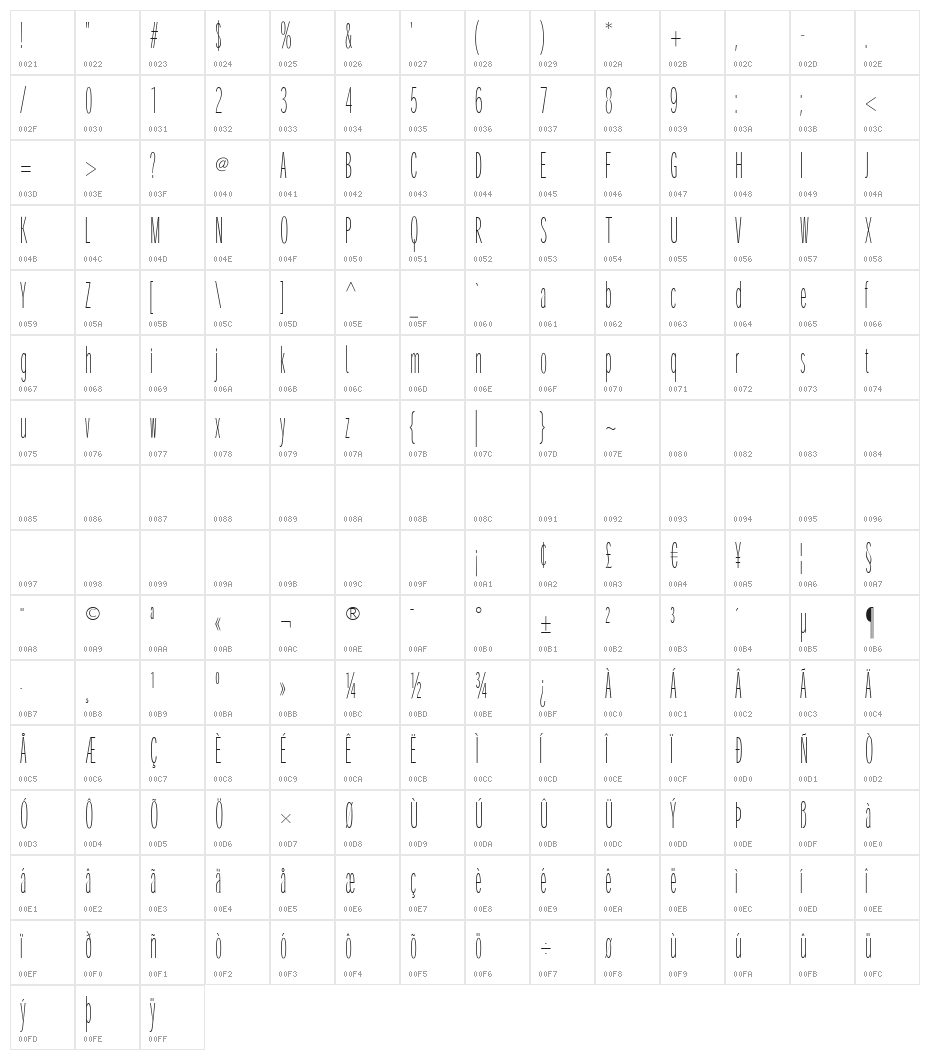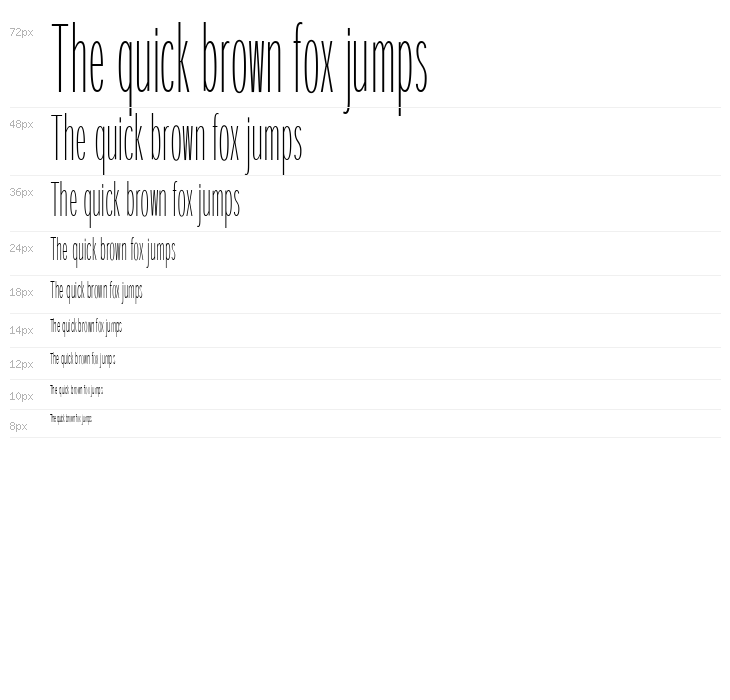
SantanaXtraCondensed Font
SantanaXtraCondensed Description
This font features an ultra-condensed style with tall, narrow letterforms that create a sleek and modern appearance. The characters are uniformly thin, emphasizing verticality and elegance. The uppercase and lowercase letters maintain a consistent height ratio, while the numerals align seamlessly with the overall design. Special characters are integrated smoothly, maintaining the font's minimalist aesthetic. This typeface is ideal for projects requiring a contemporary and sophisticated look.
| Proposed Projects | Ideal for fashion magazines, modern branding, luxury product packaging, and minimalist posters. |